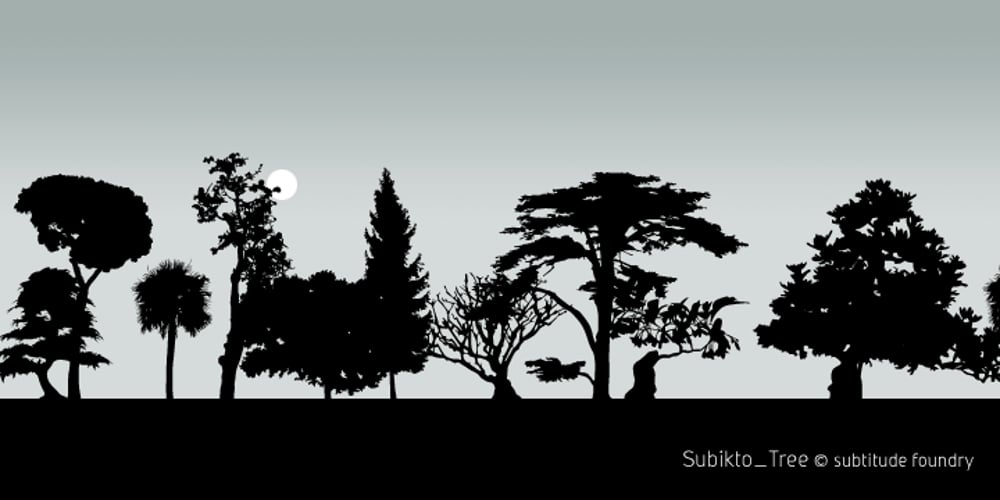
Subikto Tree Font Family was designed by Valérie Desrochers, Sébastien Théraulaz and published by Subtitude. Subikto Tree contains 1 styles and family package options. Subikto Tree is an ode to Mother Nature. This summer enjoy so many variety of trees in your design, be green and forget the blues.